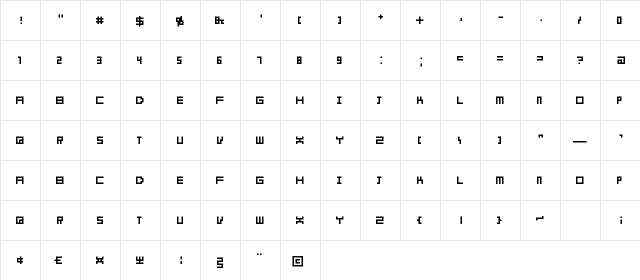
ObelusDwarf Medium
Design Context for ObelusDwarf Typeface
ObelusDwarf offers clean, dependable letterforms without strong stylistic allegiance, making it a practical choice for designers who need flexibility.